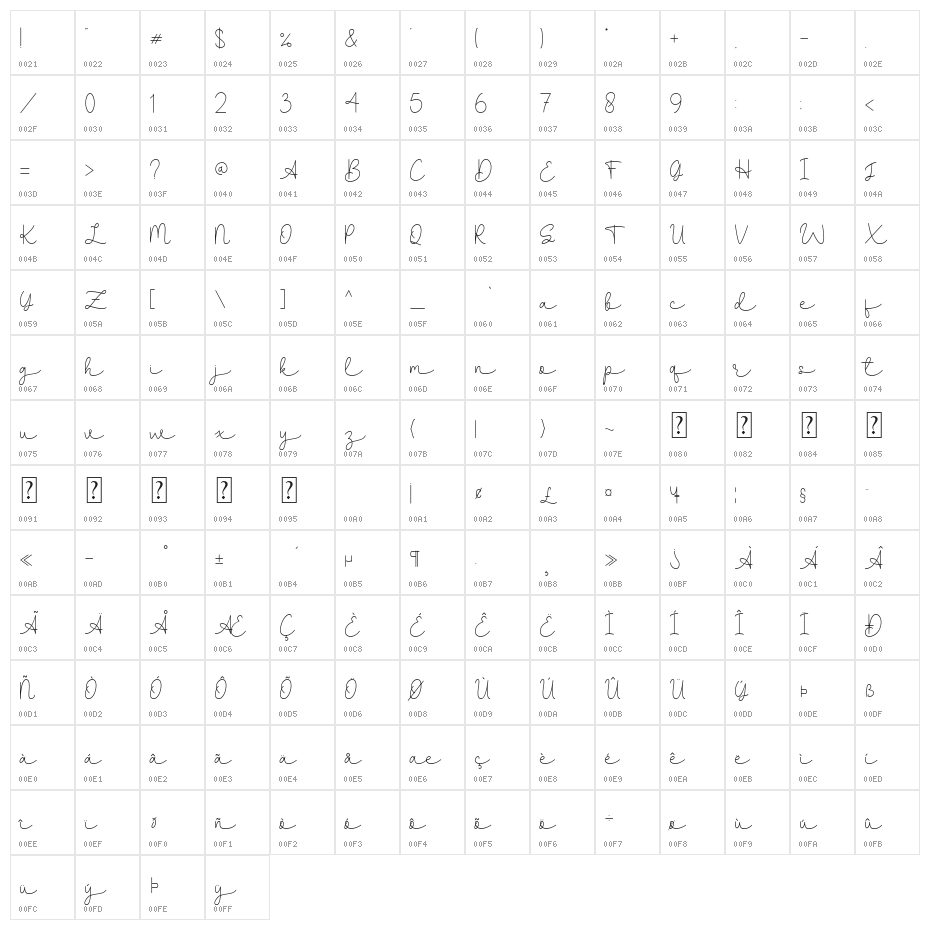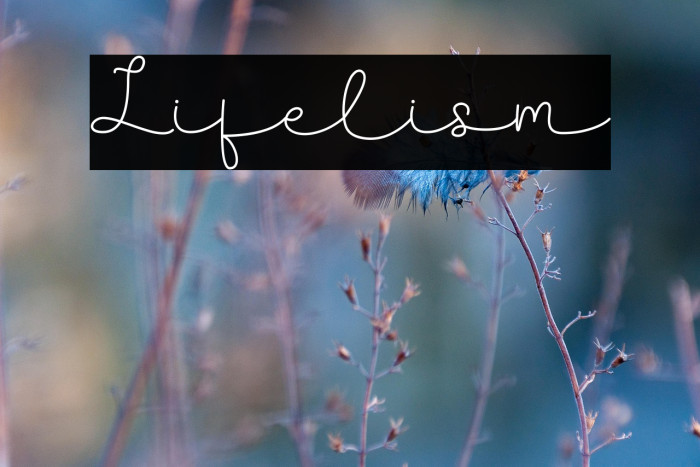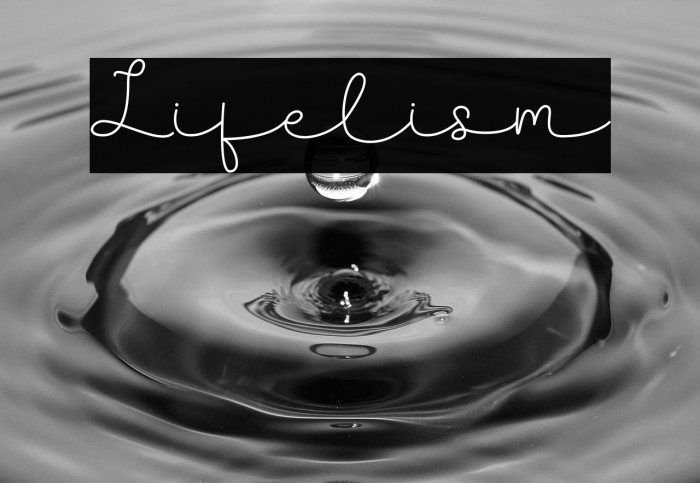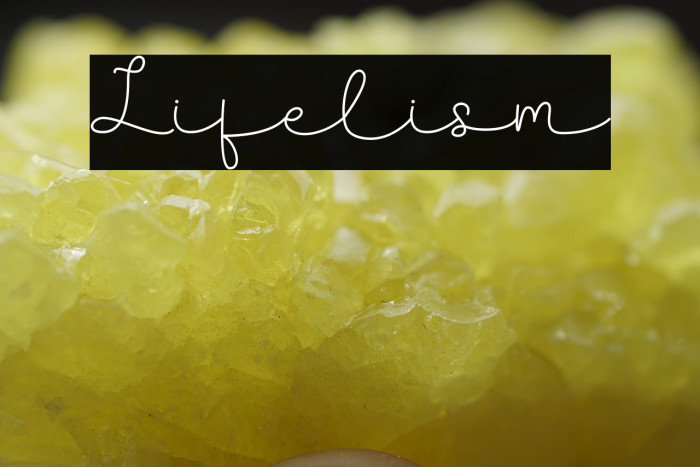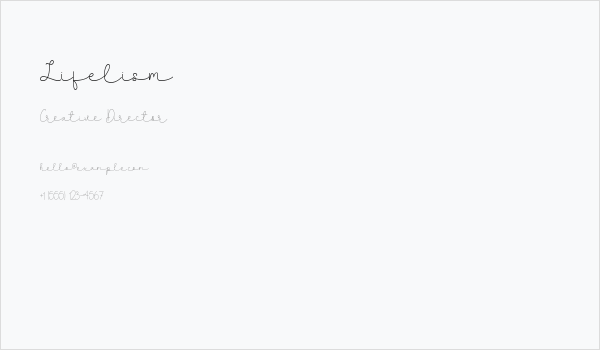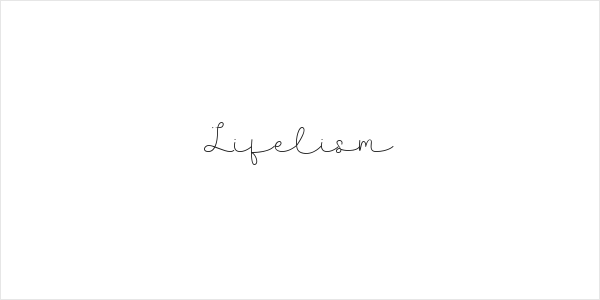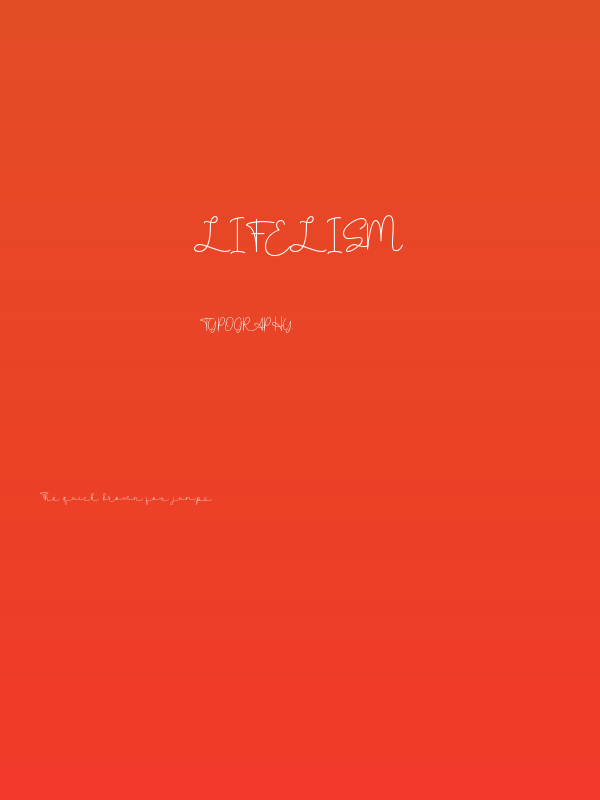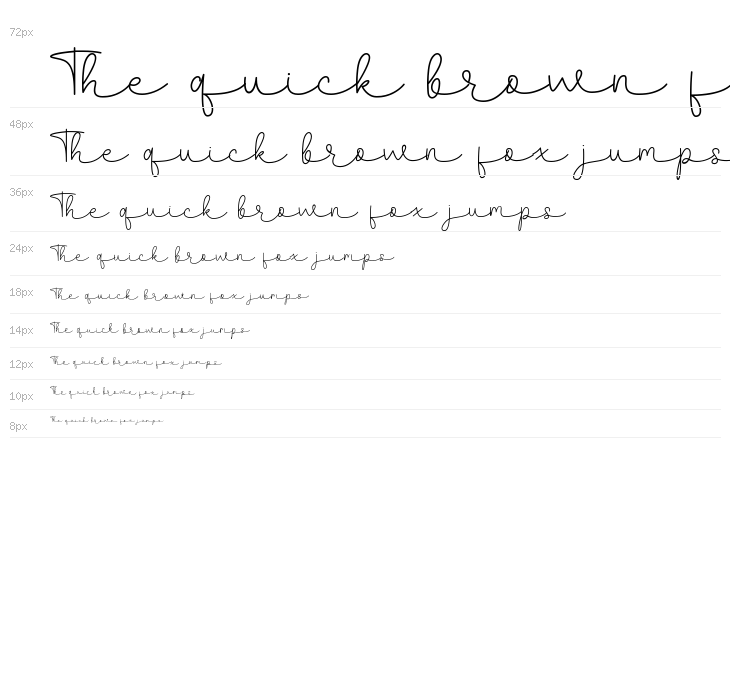
Lifelism Font
Lifelism Description
This font features a delicate and flowing script style, characterized by its elegant, hand-drawn appearance. The uppercase letters are tall and slightly narrow, with graceful loops and curves that give a sense of fluidity and movement. The lowercase letters maintain a consistent style, with smooth connections between characters, enhancing the font's cursive nature. Numbers and special characters are designed to match the overall aesthetic, offering a cohesive look. This font is perfect for projects that require a personal touch, such as invitations, greeting cards, or branding materials.
| Overall Style | Elegant, Handwritten |
| Use Case | Logos, Invitations, Personal branding |
| Proposed Projects | Ideal for wedding invitations, personal branding, greeting cards, and elegant stationery. |